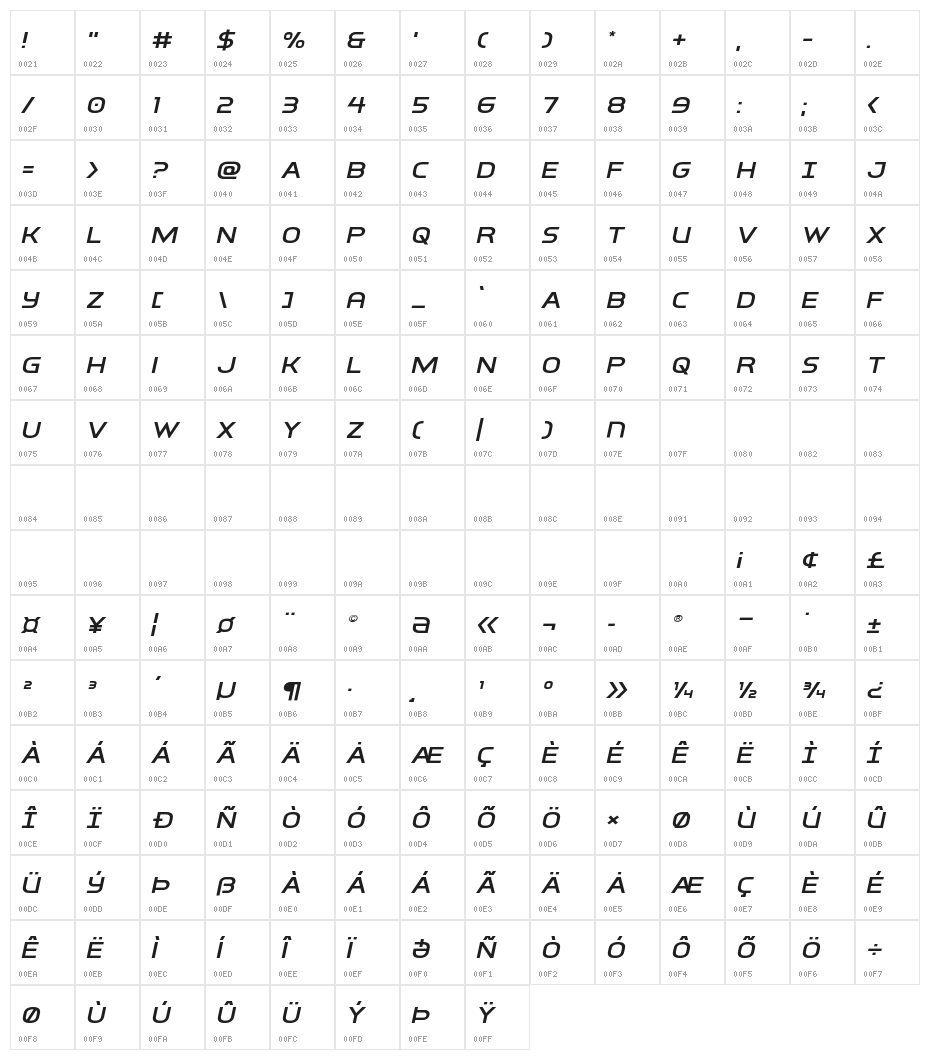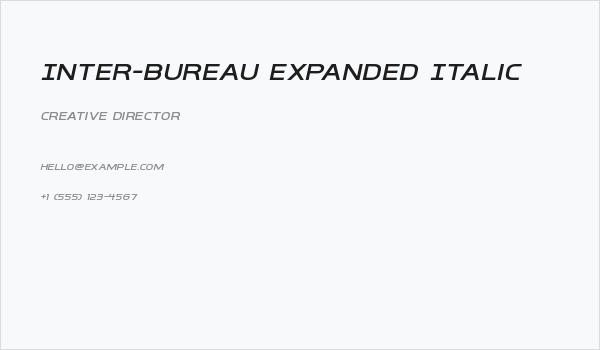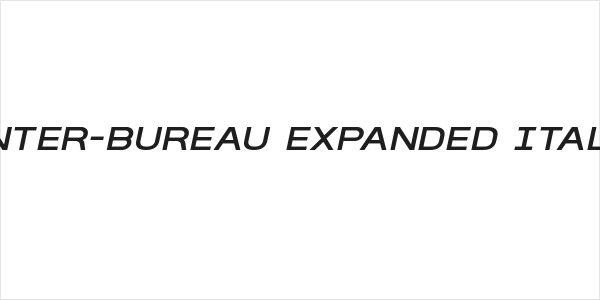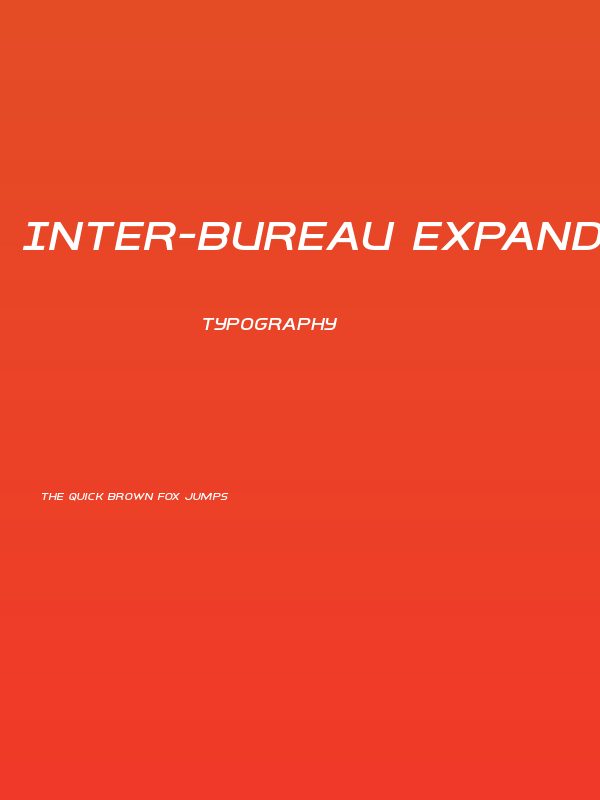
Inter-Bureau Expanded Italic Font
Inter-Bureau Expanded Italic Description
This font features a sleek and modern design with an italicized style that gives it a dynamic and forward-moving appearance. The characters are expanded, providing a sense of openness and readability. The strokes are consistent in weight, offering a uniform look across all characters. The font maintains a clean and professional aesthetic, making it suitable for a variety of applications. Its expanded width and italic slant add a unique flair, while the sans-serif nature ensures clarity and simplicity. The spacing between characters is normal, allowing for easy legibility without appearing cramped or overly spaced. The overall style is contemporary, making it ideal for modern design projects.
| Use Case | Headlines, Logos, Digital Media |
| Proposed Projects | Ideal for branding, advertising, digital media, and editorial design projects. |